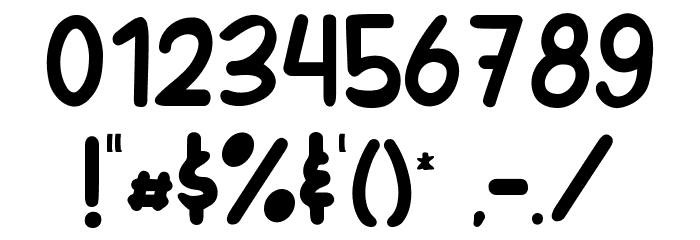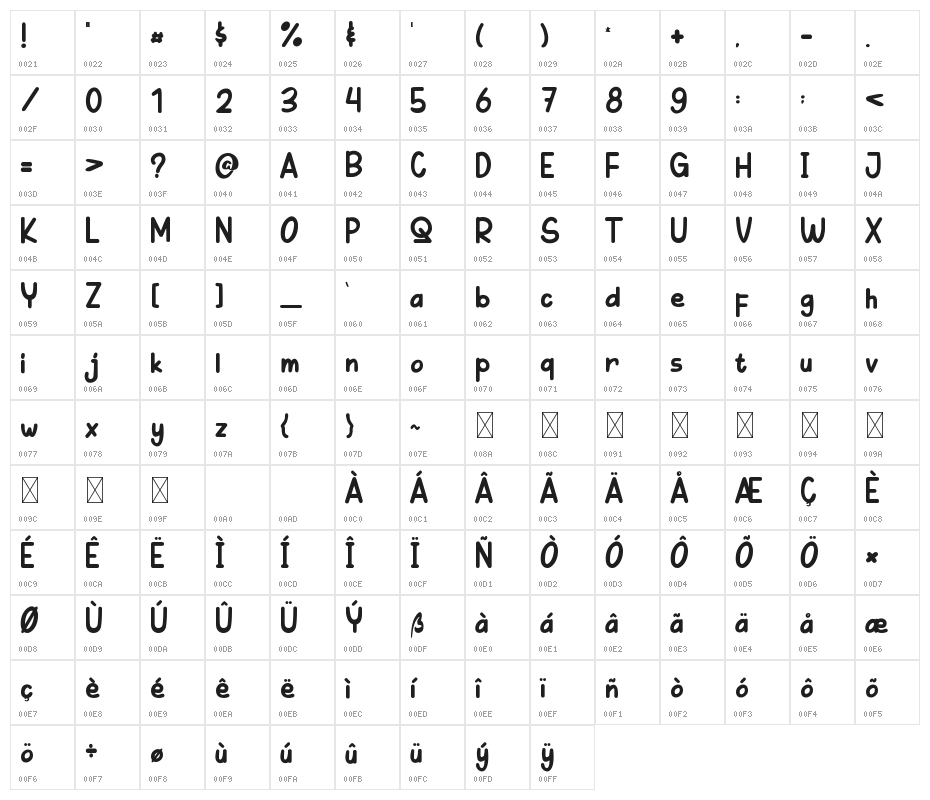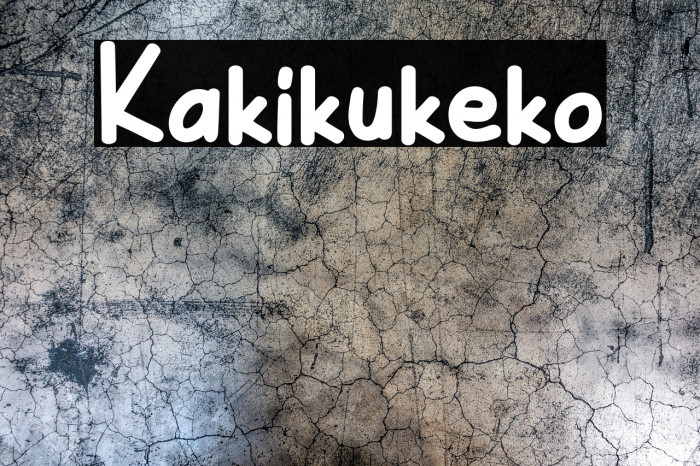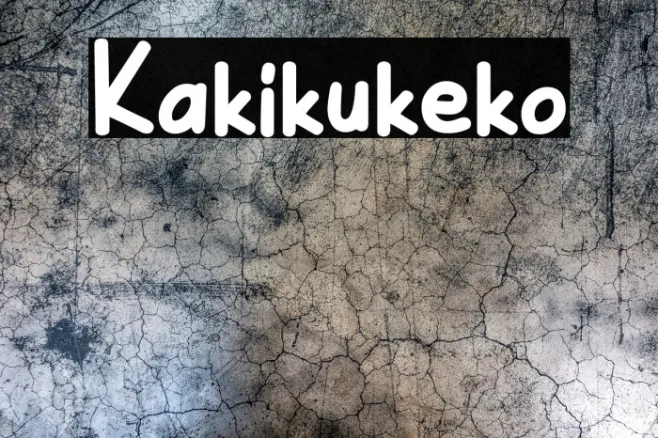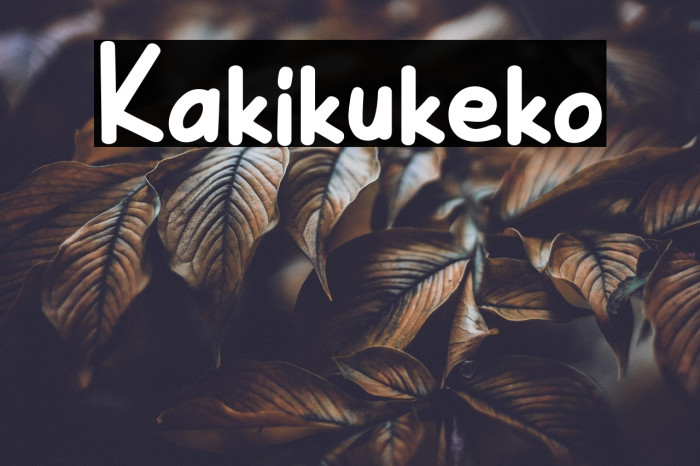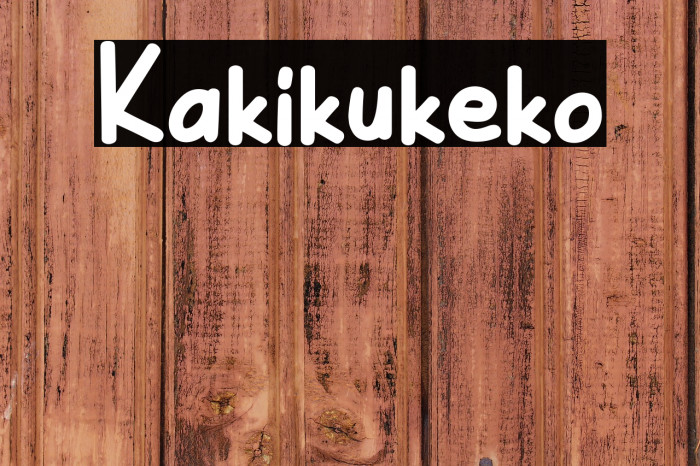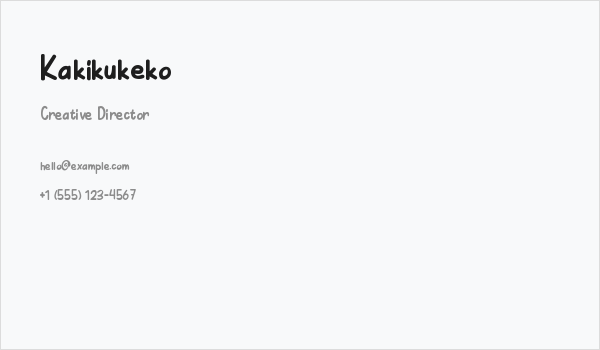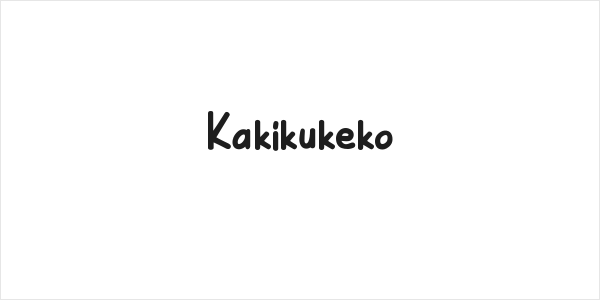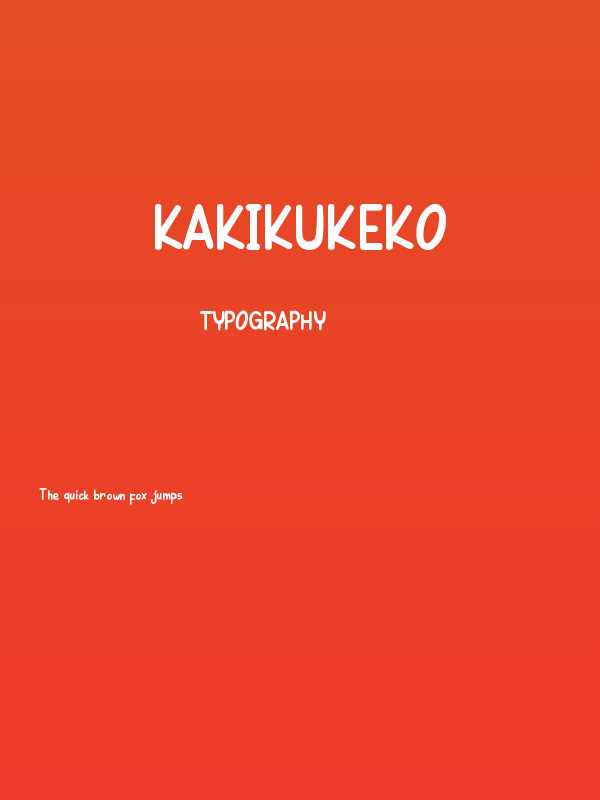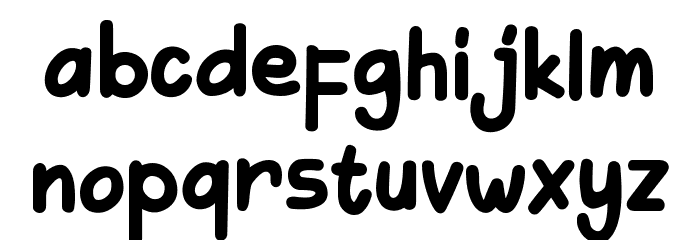
Kakikukeko Font
Kakikukeko Description
This playful and rounded font features bold, smooth strokes with a friendly and approachable appearance. The characters are evenly spaced, with a consistent thickness that gives it a cohesive look. The uppercase letters are slightly taller than the lowercase, maintaining a uniform width throughout. The numbers and special characters are designed to match the overall style, ensuring readability and visual harmony. This font is ideal for projects that require a fun and inviting tone, such as children's books, playful branding, or casual invitations.
Overall StylePlayful
Use CaseHeadlines, Logos, Invitations
Proposed ProjectsChildren's books, playful branding, casual invitations, educational materials.